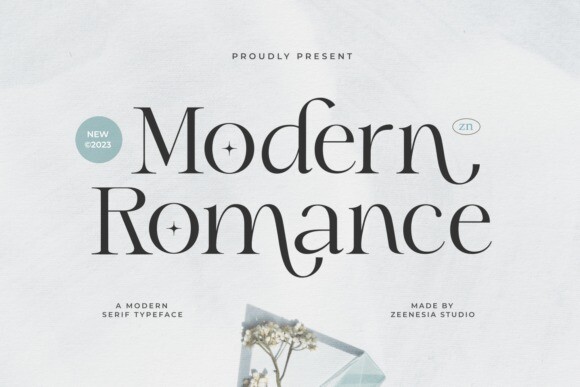
Moderna Romance Font
Modern Romance Font is a beautiful and modern serif font created with a romantic and lovely look.
It’s a very versatile font that works great in large.
Whether you’re using it for business project, digital design, presentations, or making greeting cards, this font has the potential to become your favorite go-to font, no matter the occasion!